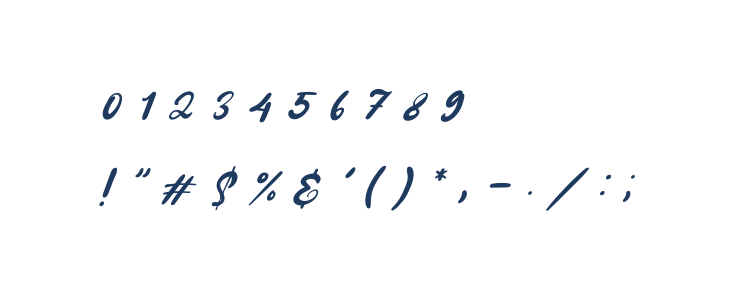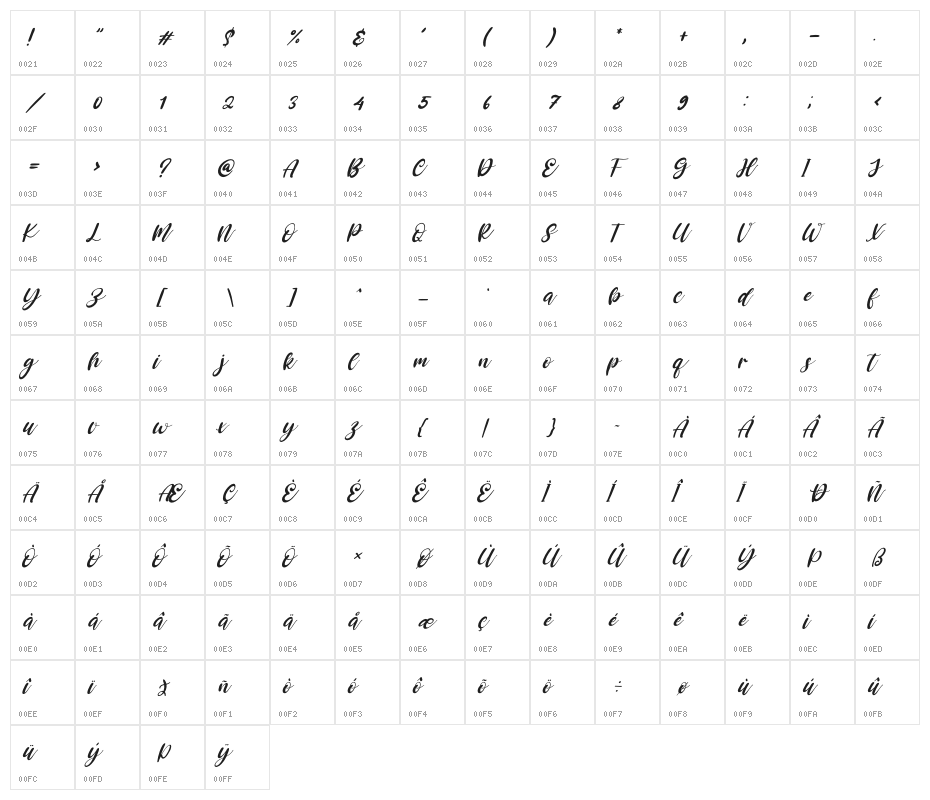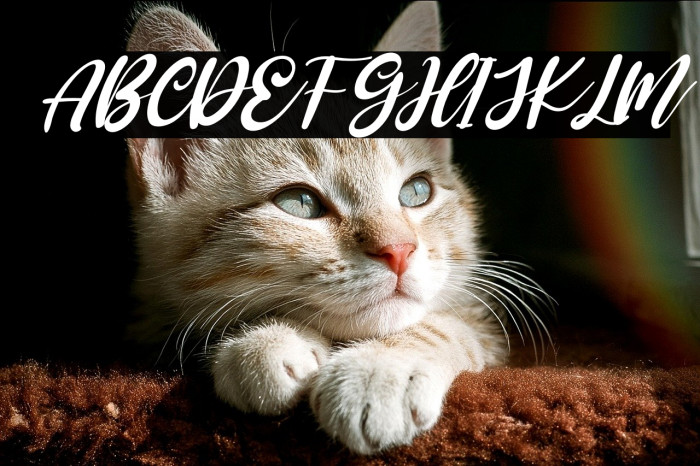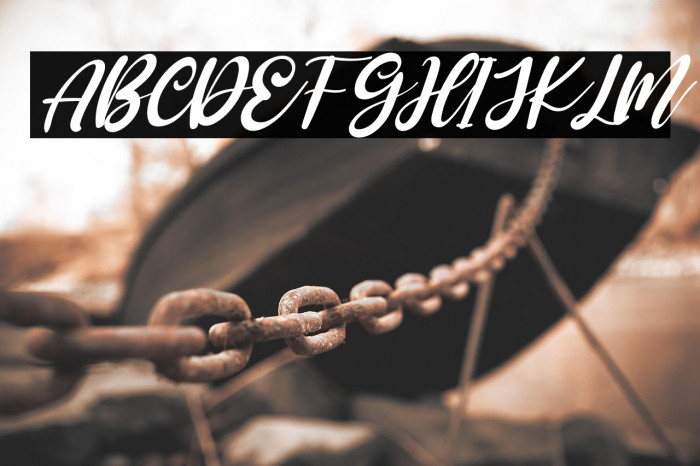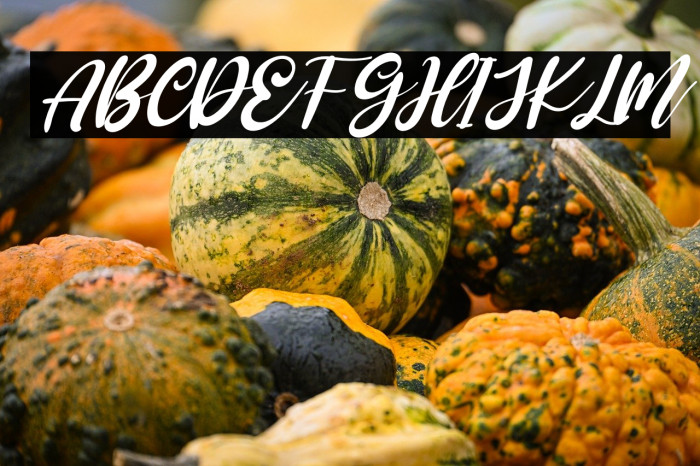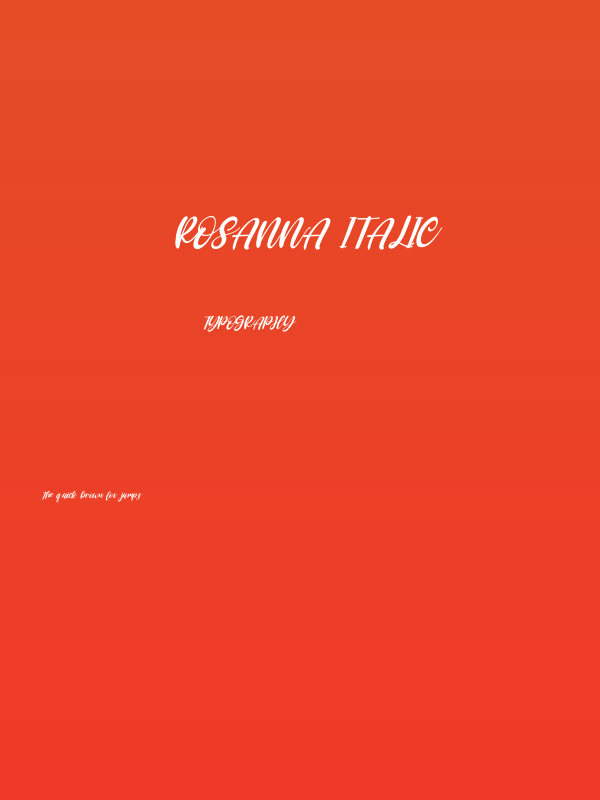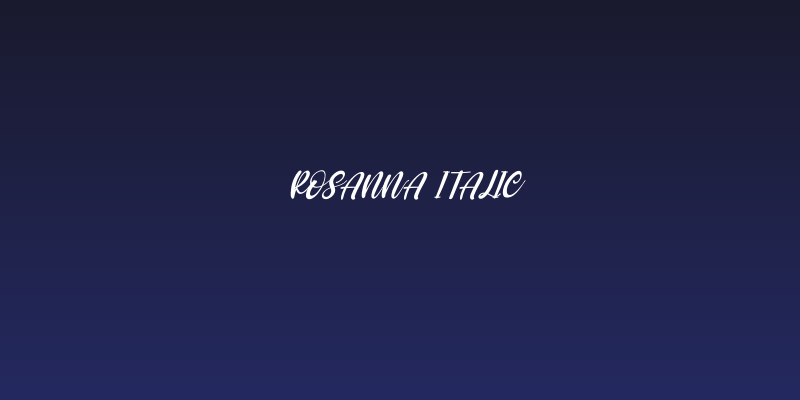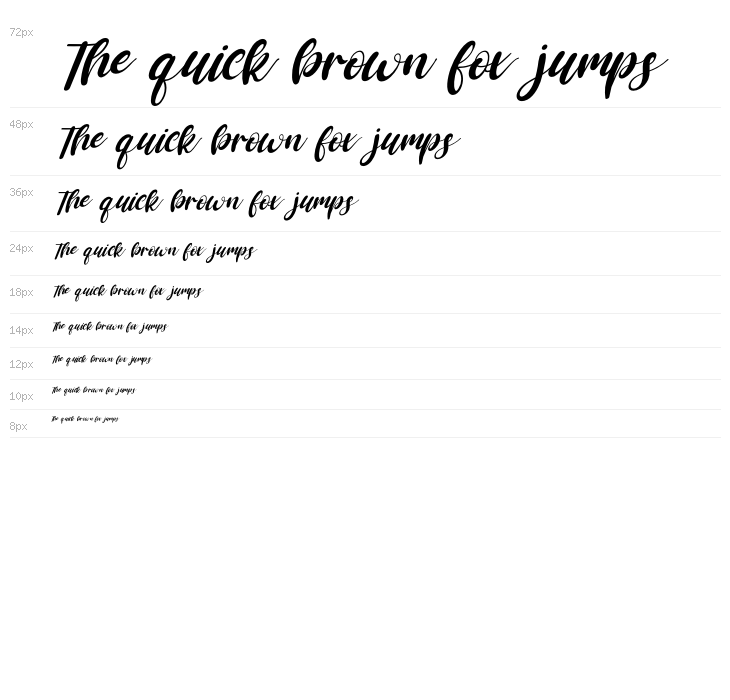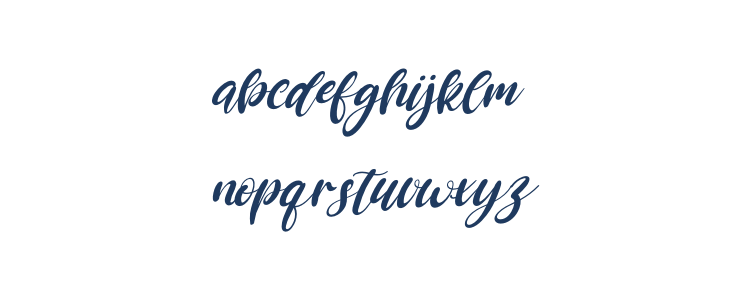
Rosanna Italic Font
Rosanna Italic Description
This font features a flowing, cursive style with elegant, sweeping strokes that give it a sophisticated and artistic appearance. The letters are connected in a fluid manner, reminiscent of traditional calligraphy, yet maintain a modern flair. The uppercase letters are bold and prominent, while the lowercase letters are more delicate, creating a balanced contrast. The numbers and special characters are designed to complement the overall aesthetic, ensuring consistency across all glyphs. This font is perfect for projects that require a touch of elegance and creativity.